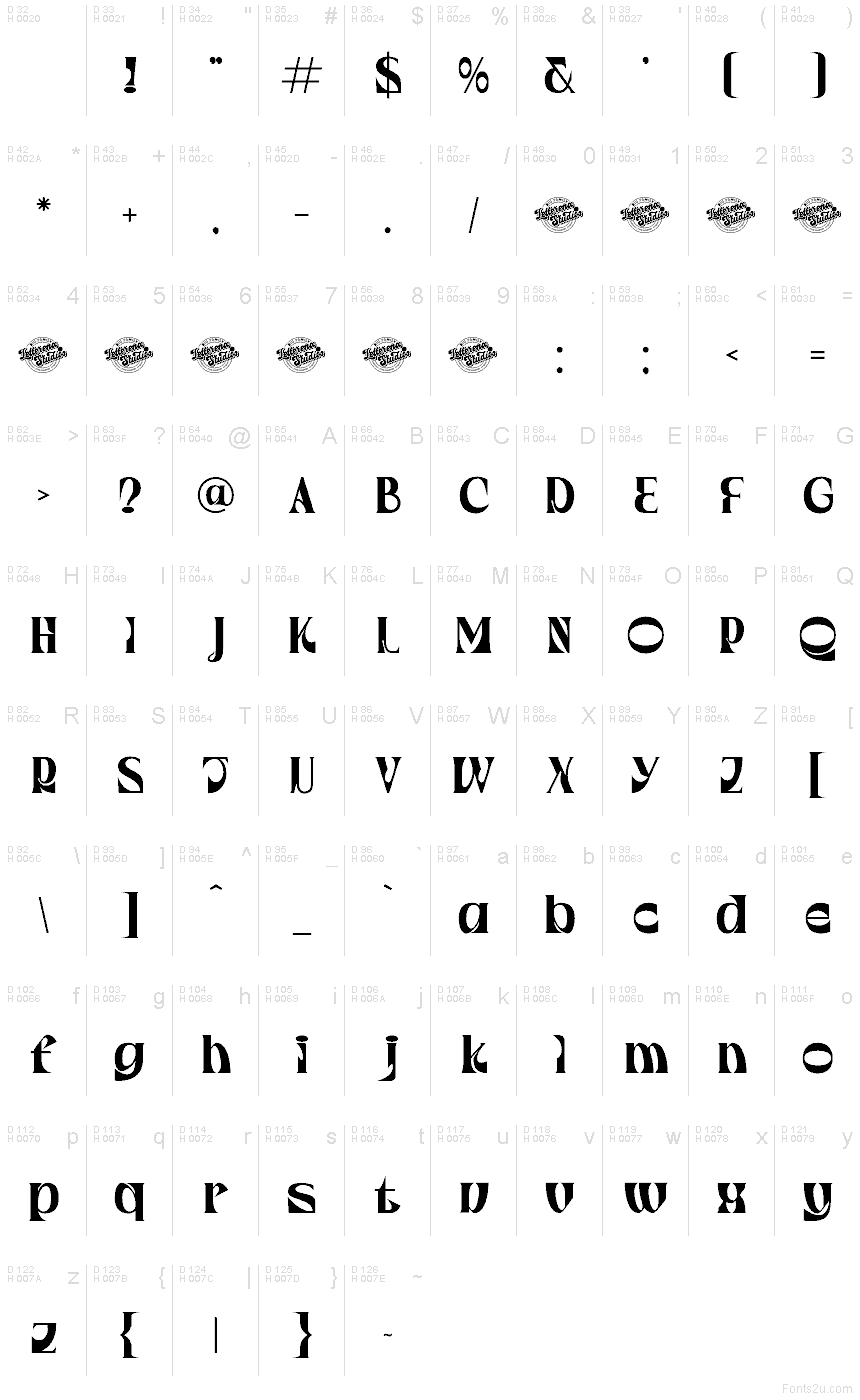
Waflerd DEMO VERSION
Waflerd font by Letterena Studios is a free decorative serif typeface. Its personality comes from sculpted letterforms with carved-in scoops and split counters that feel almost stencil-like, turning every word into a graphic shape. Thick, inky strokes meet crisp interior cutouts, giving headlines a theatrical snap while keeping them surprisingly readable.
Using Waflerd, you get bold impact without shouting—the sliced details create rhythm and texture that hold up on posters, packaging, boutique logos, album covers, event titles, and magazine openers. This free font shines when set large with a touch of tracking. Pair it with a clean grotesk or geometric sans for body copy to let Waflerd’s ornate curves do the talking.